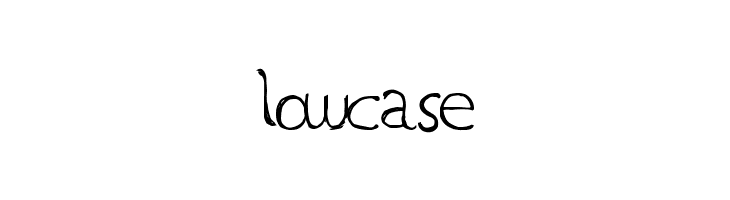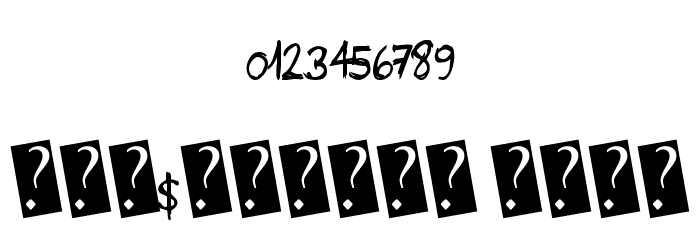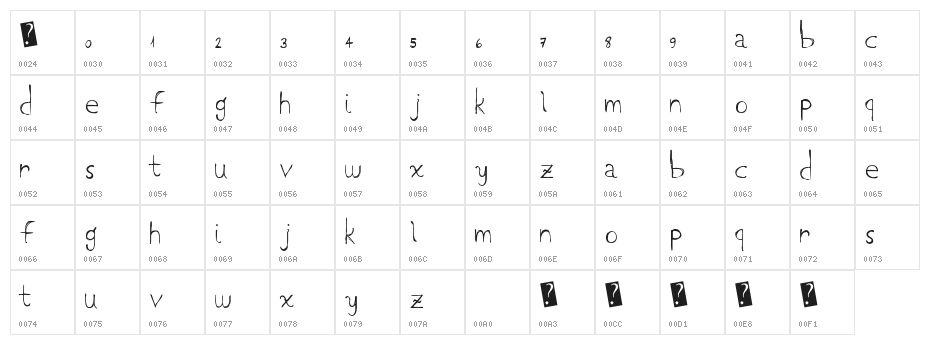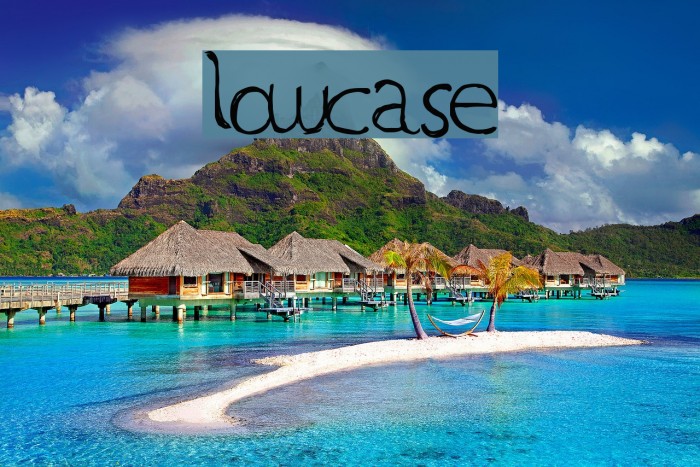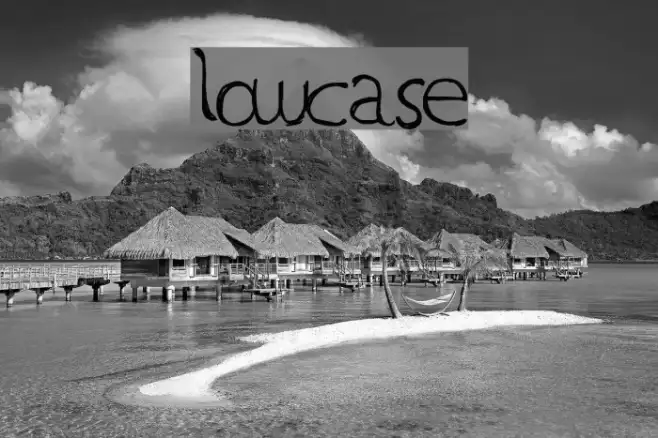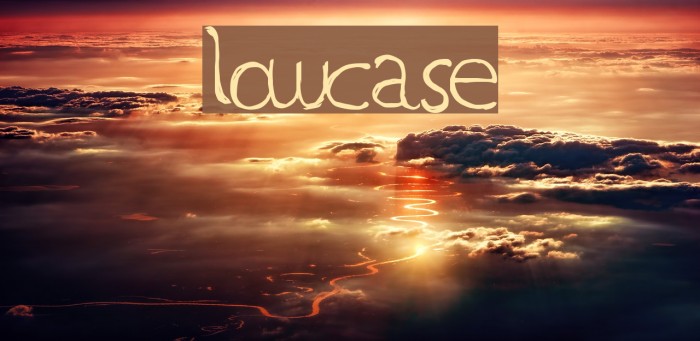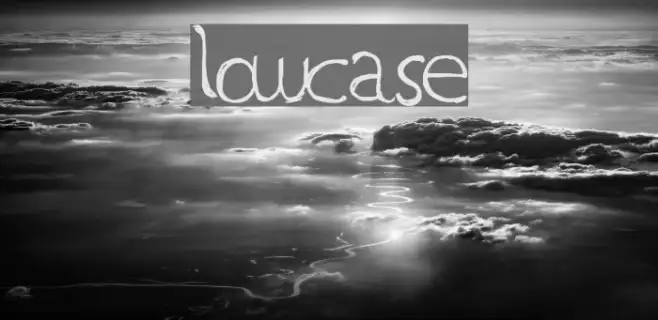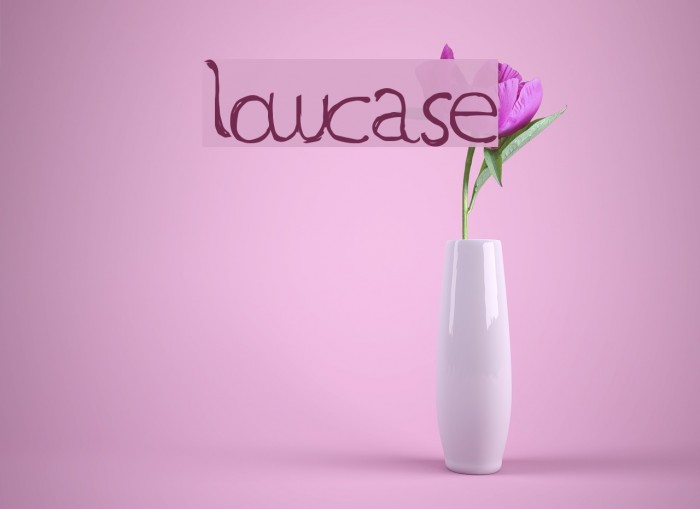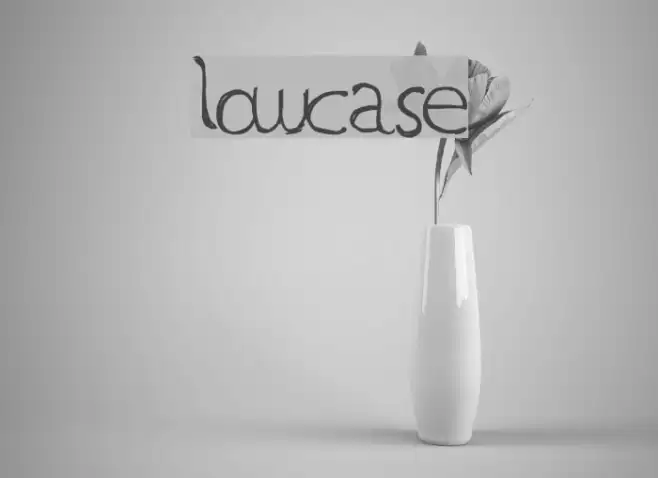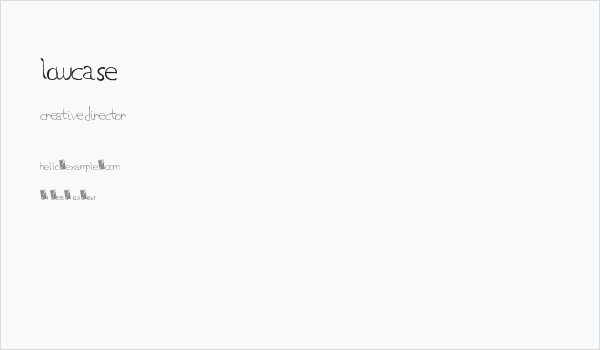
LowCase Font
LowCase Description
This font features a whimsical and playful handwritten style, characterized by its uneven strokes and slightly irregular letterforms. The lowercase letters exhibit a casual and friendly appearance, with a touch of artistic flair. The numbers maintain the same playful style, ensuring consistency throughout the typeface. The special characters are creatively designed, adding to the font's unique personality. This font is ideal for projects that require a personal and informal touch, such as greeting cards, invitations, or creative branding.
| Proposed Projects | Ideal for greeting cards, invitations, creative branding, and informal designs. |